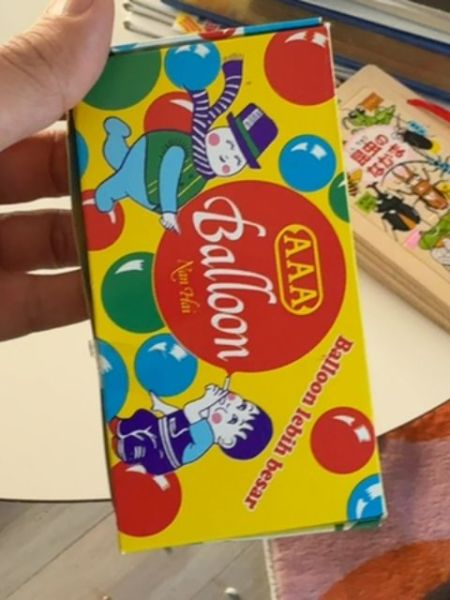
AAA Balloon
A product designed for blowing balloons, suitable for children's parties and recreational activities.
The typography on the packaging uses a script style for the word 'Balloon,' giving it a whimsical and playful feel. The 'AAA' is bolded in a sans-serif font within a red circle, conveying a sense of authority and reliability.
The packaging features a vibrant yellow backdrop adorned with colorful balloons. It has playful illustrations of children engaging with balloons, complemented by a prominent red circular logo.
- The packaging uses bright, eye-catching colors to appeal to children.
- It includes the logo 'AAA' prominently, indicating a quality or established brand.
- The product is marketed towards fun and playfulness, emphasizing its use in celebratory events.